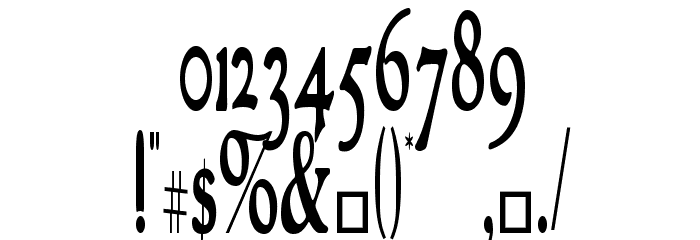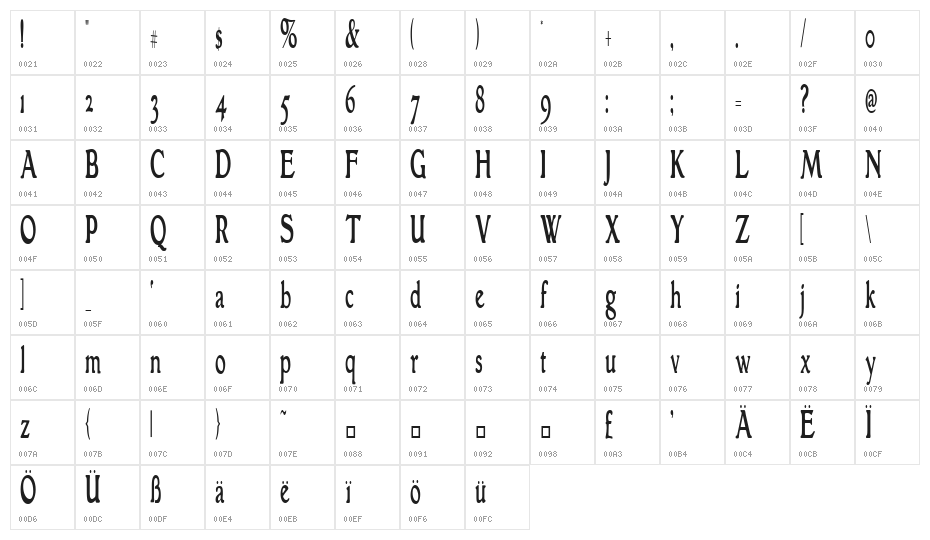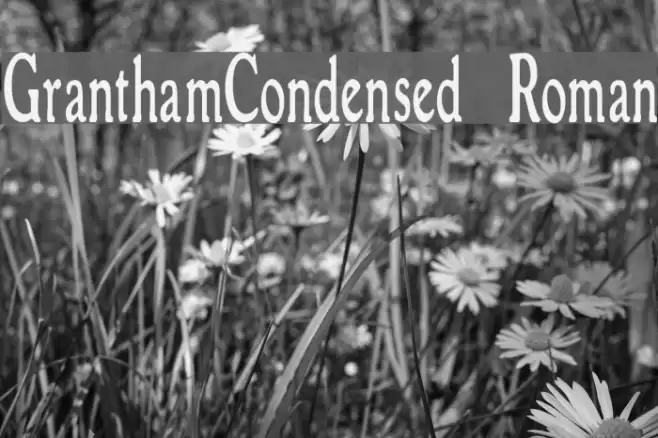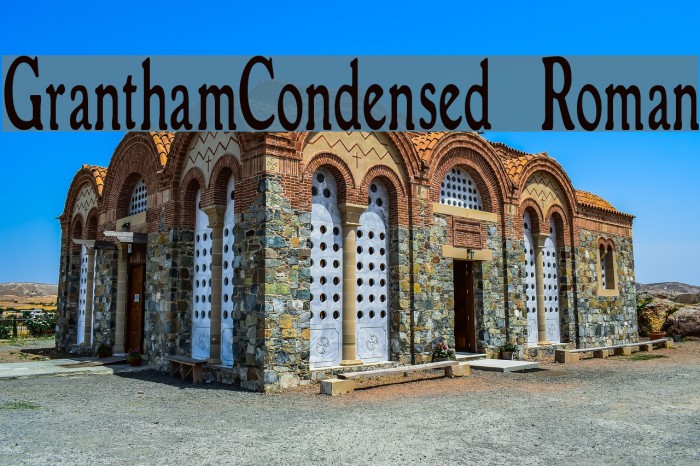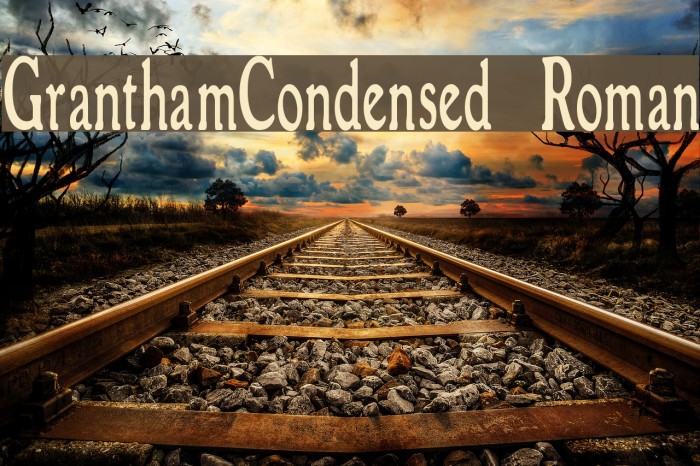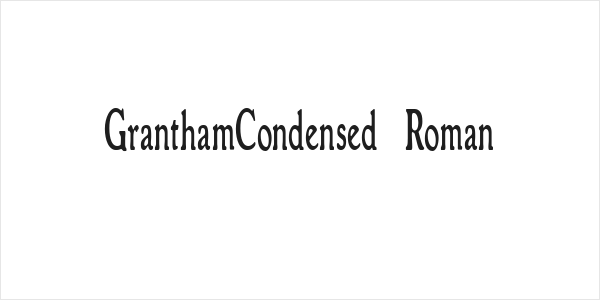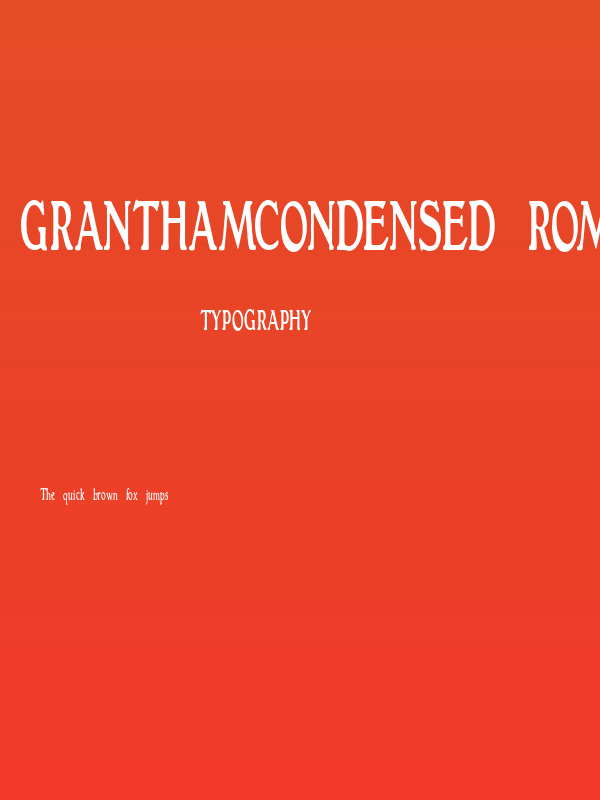
GranthamCondensed Roman Font
| おすすめプロジェクト | Ideal for editorial design, book covers, branding, and any project requiring a sophisticated and space-efficient typeface. |